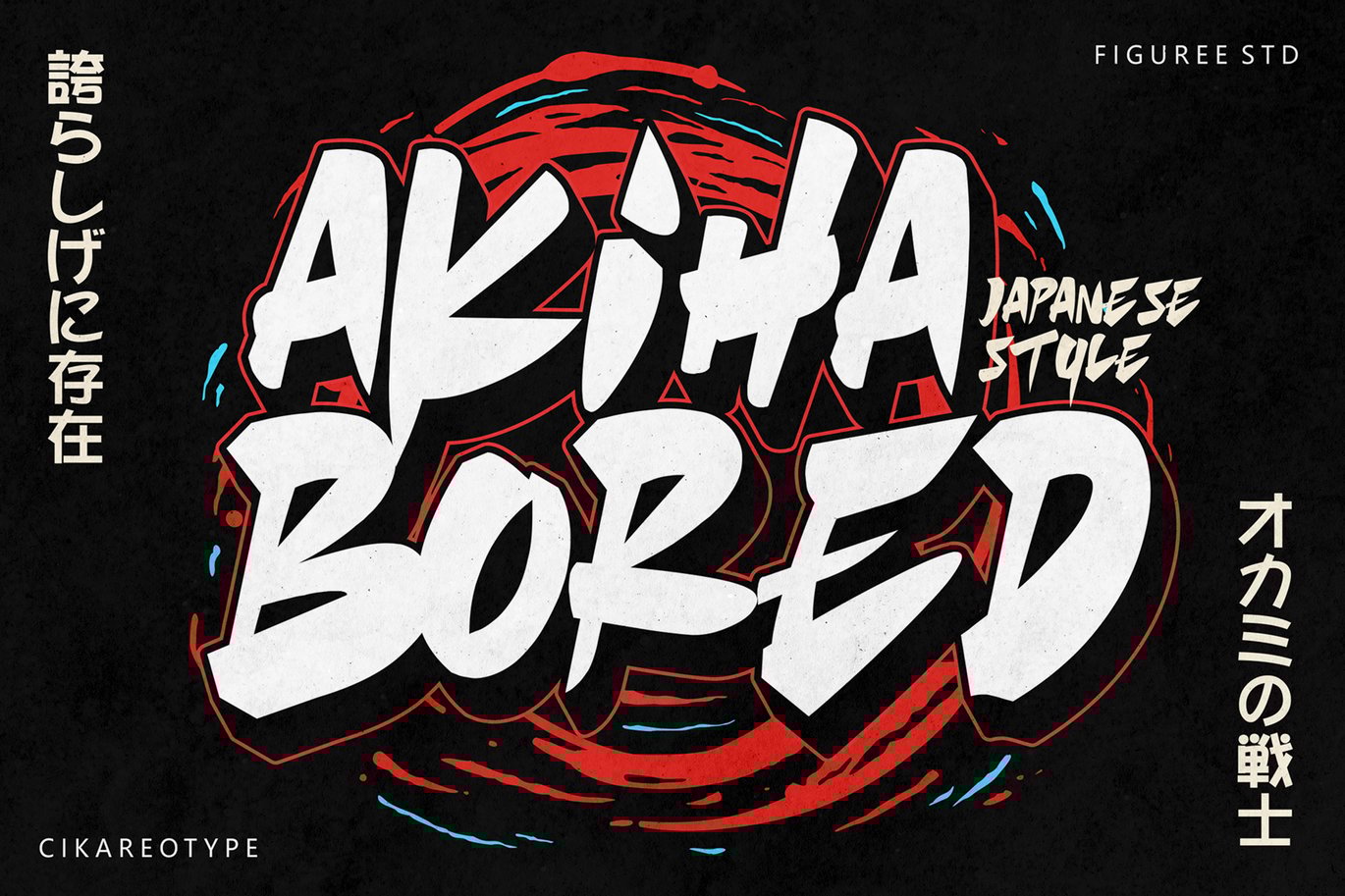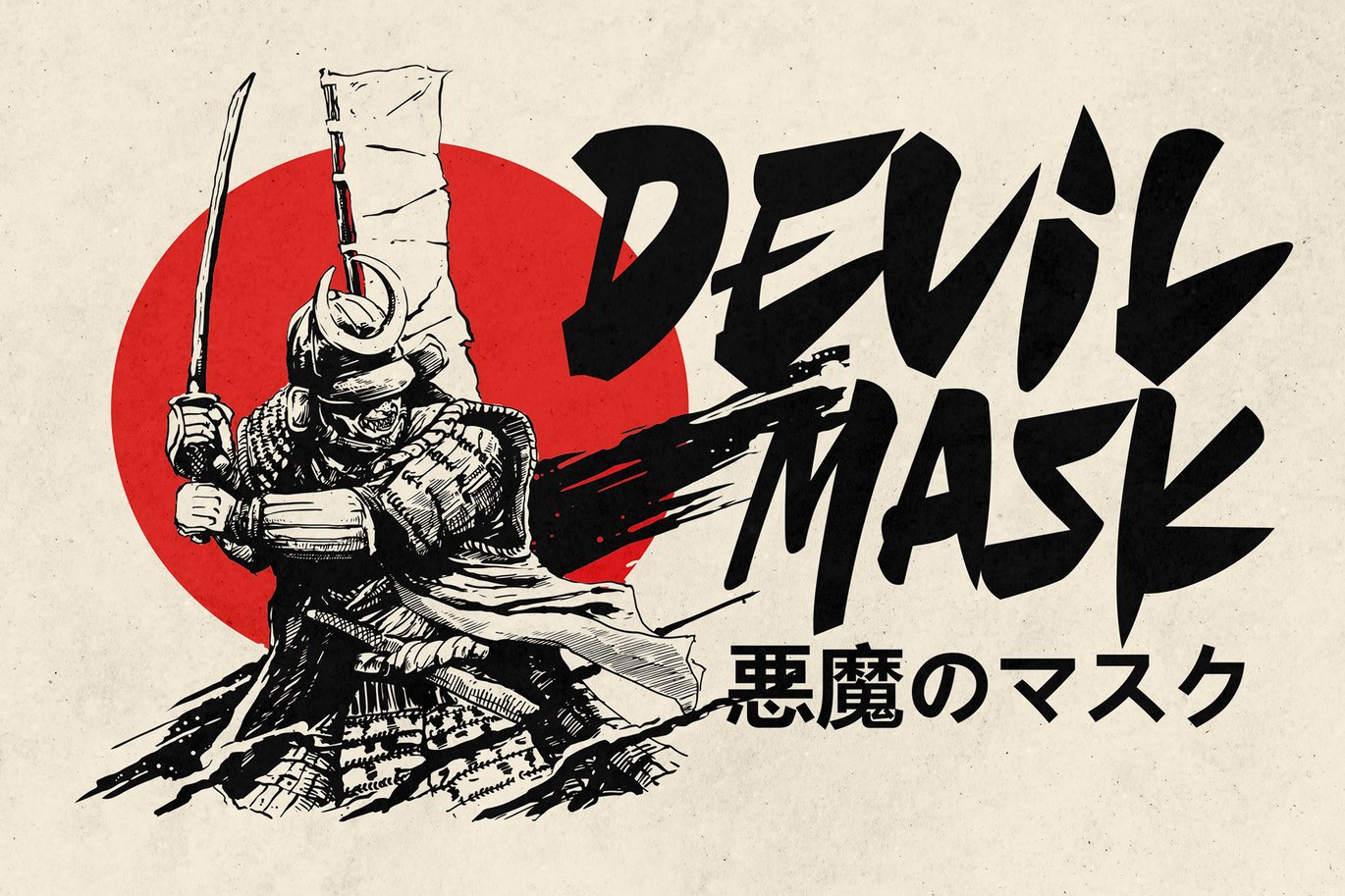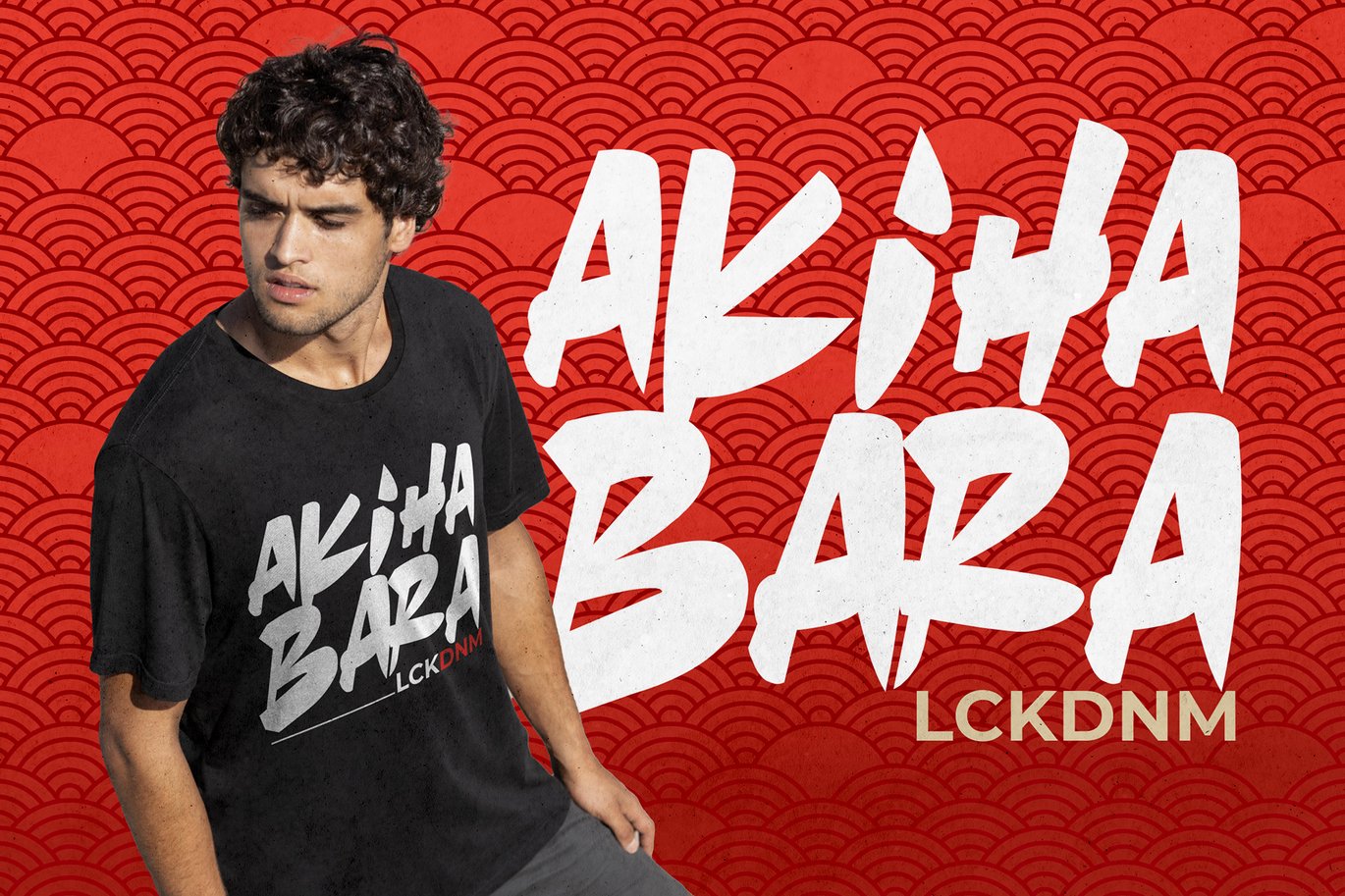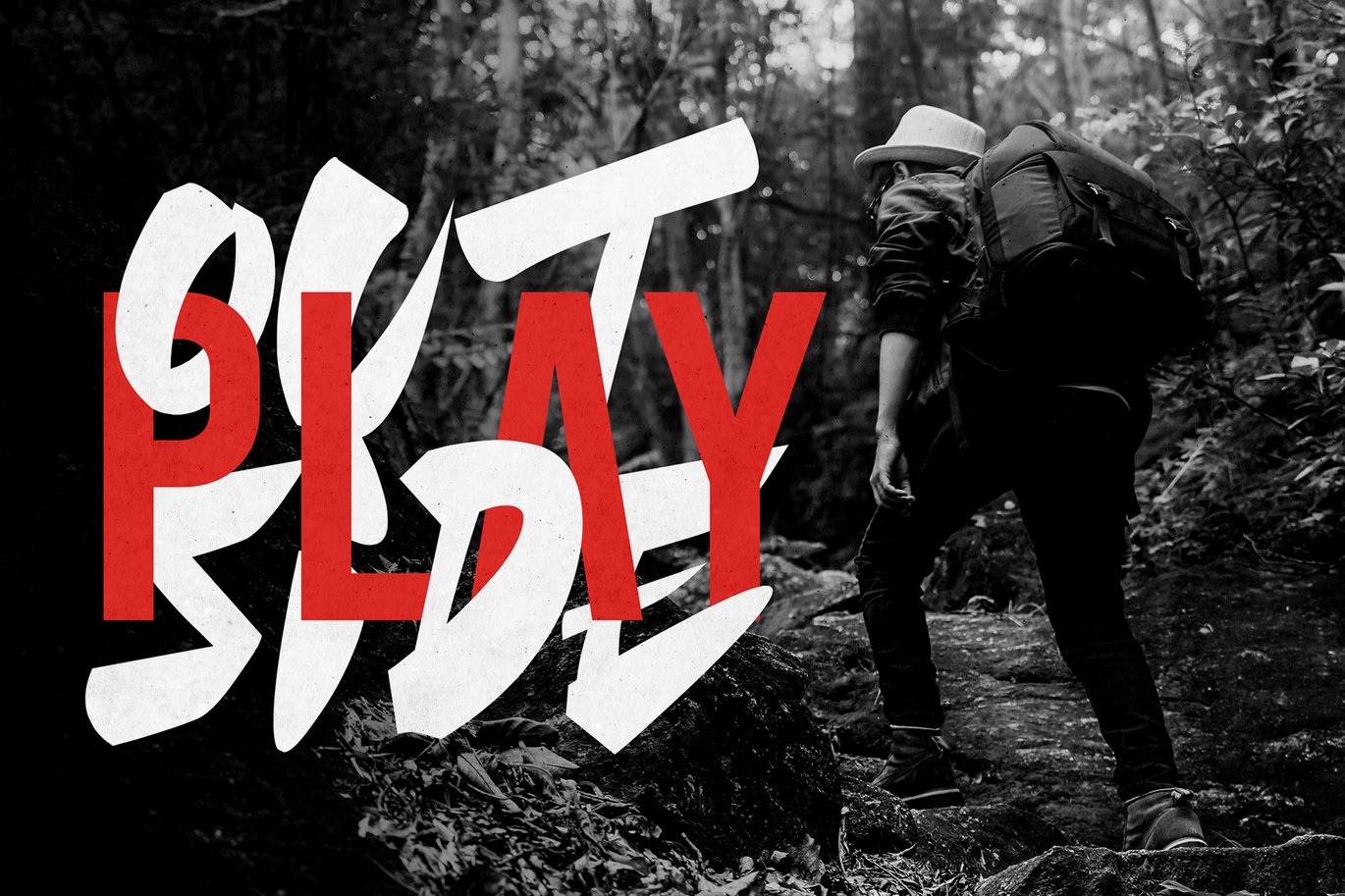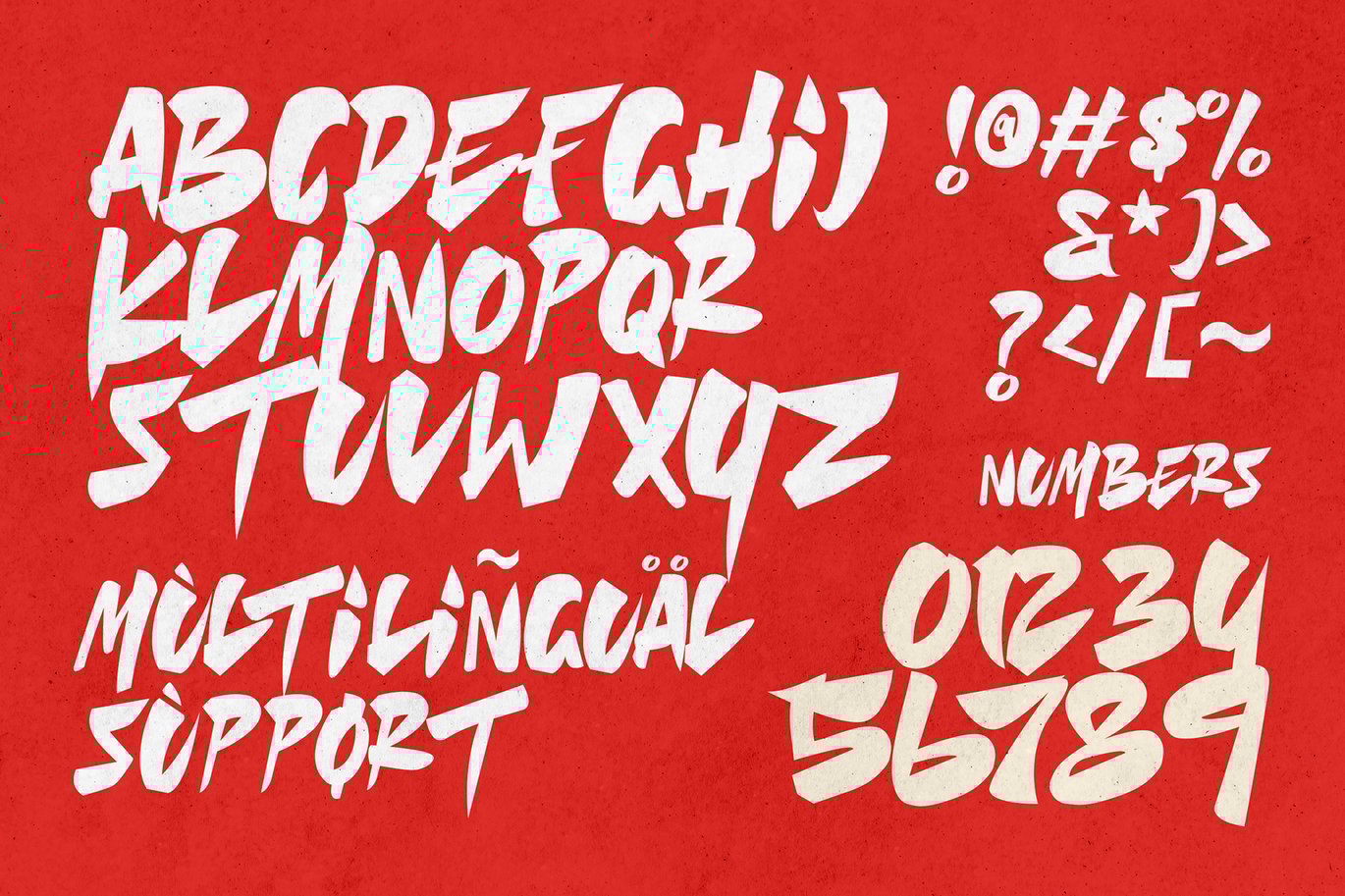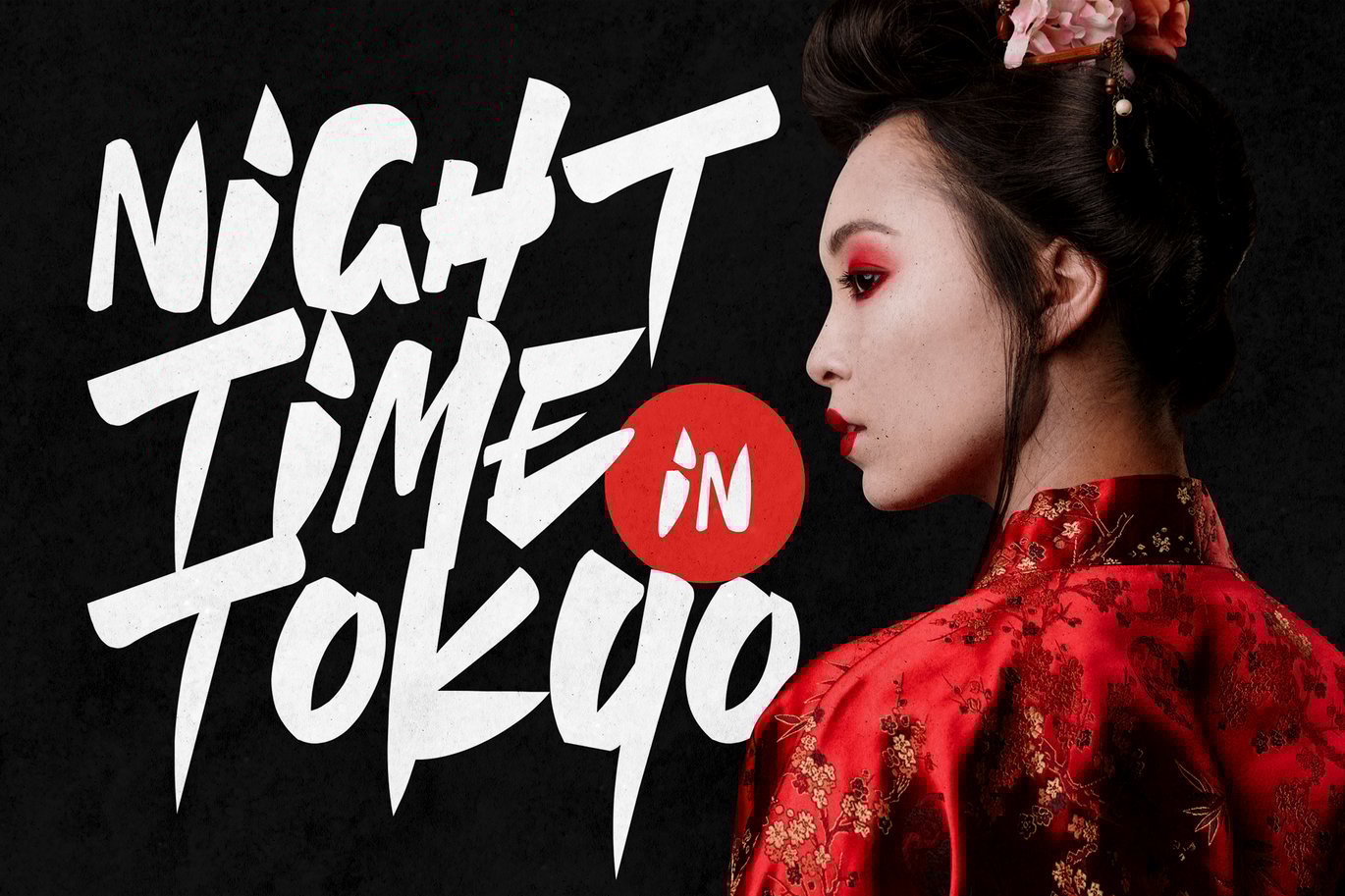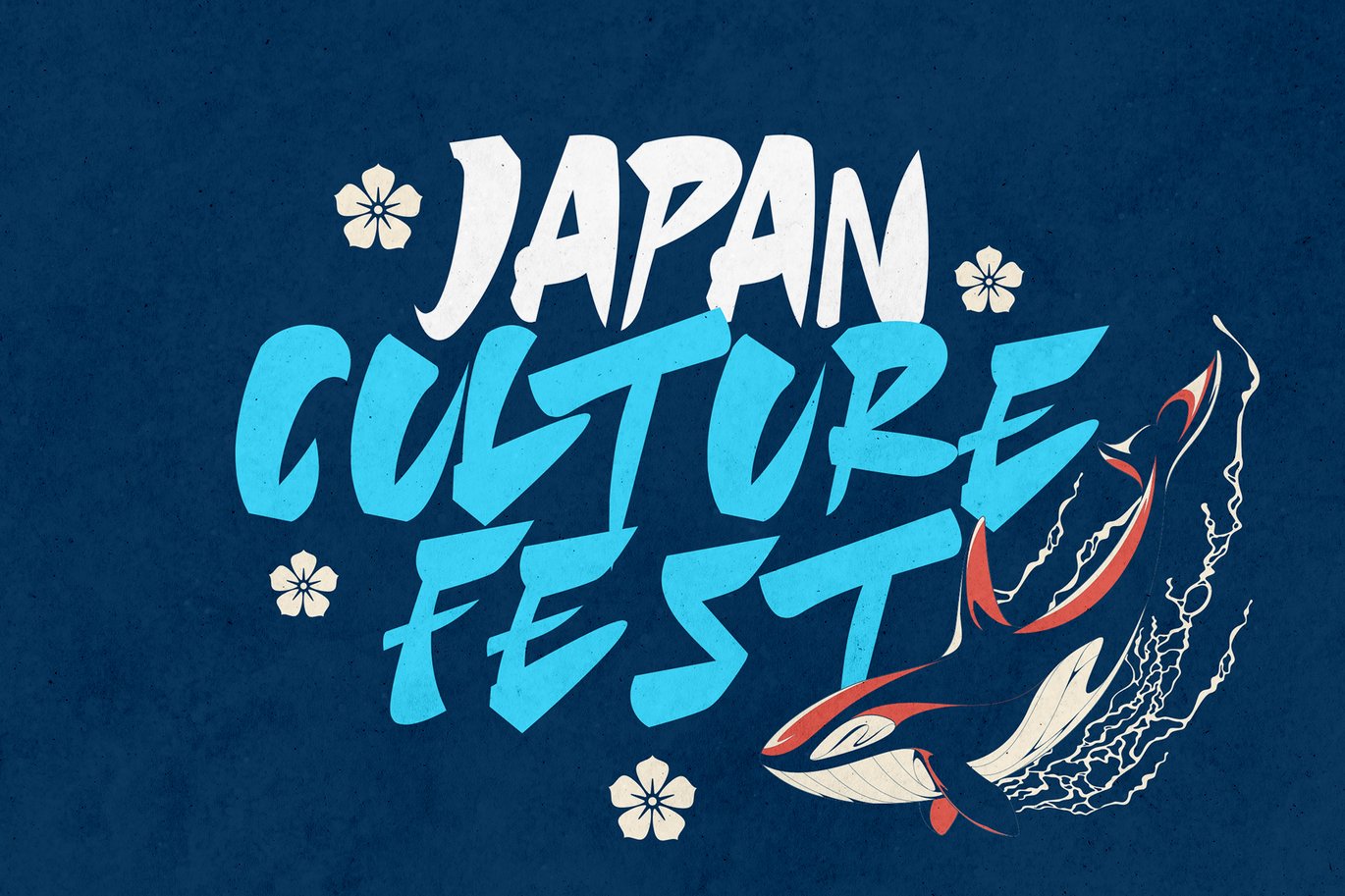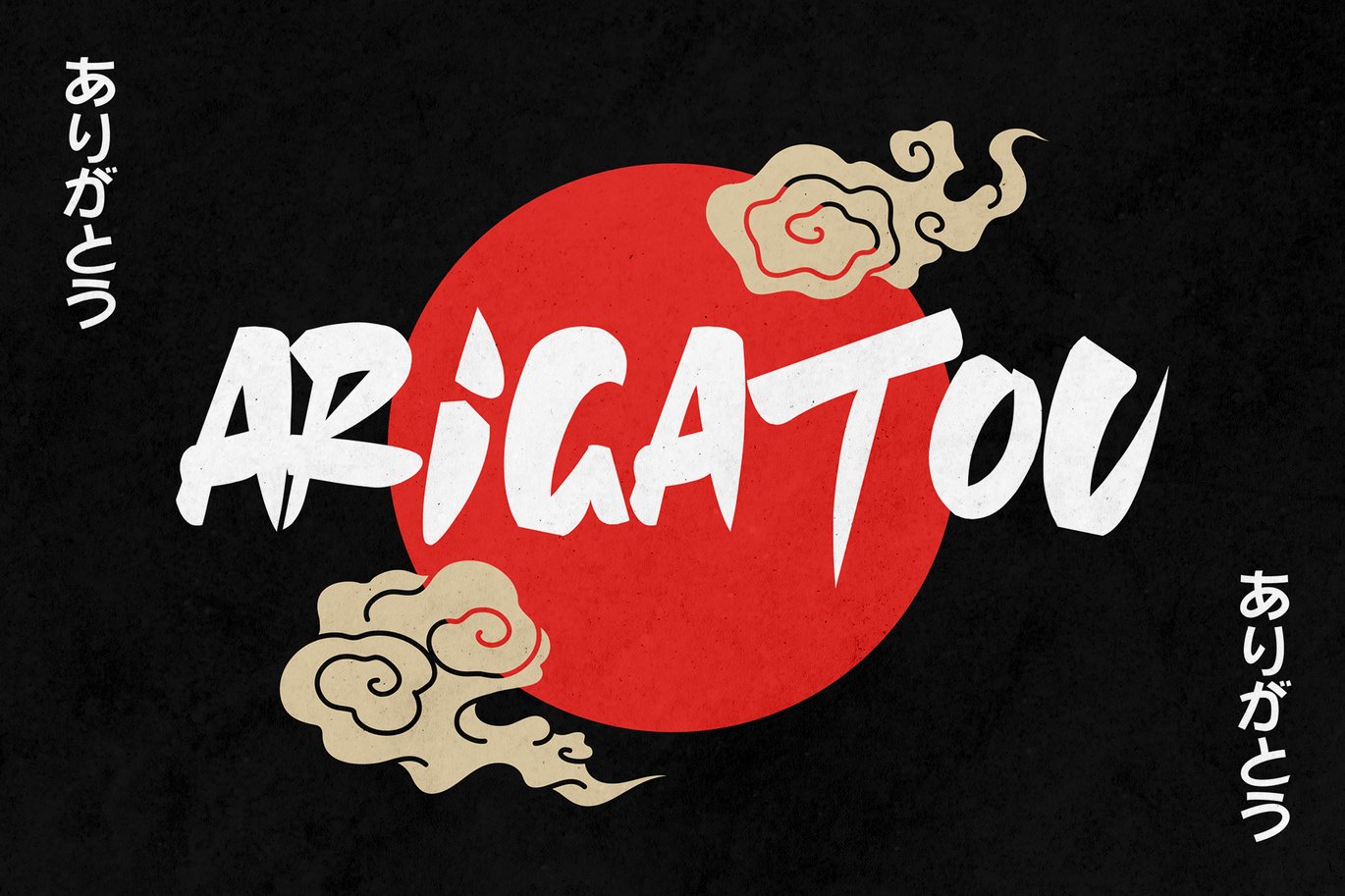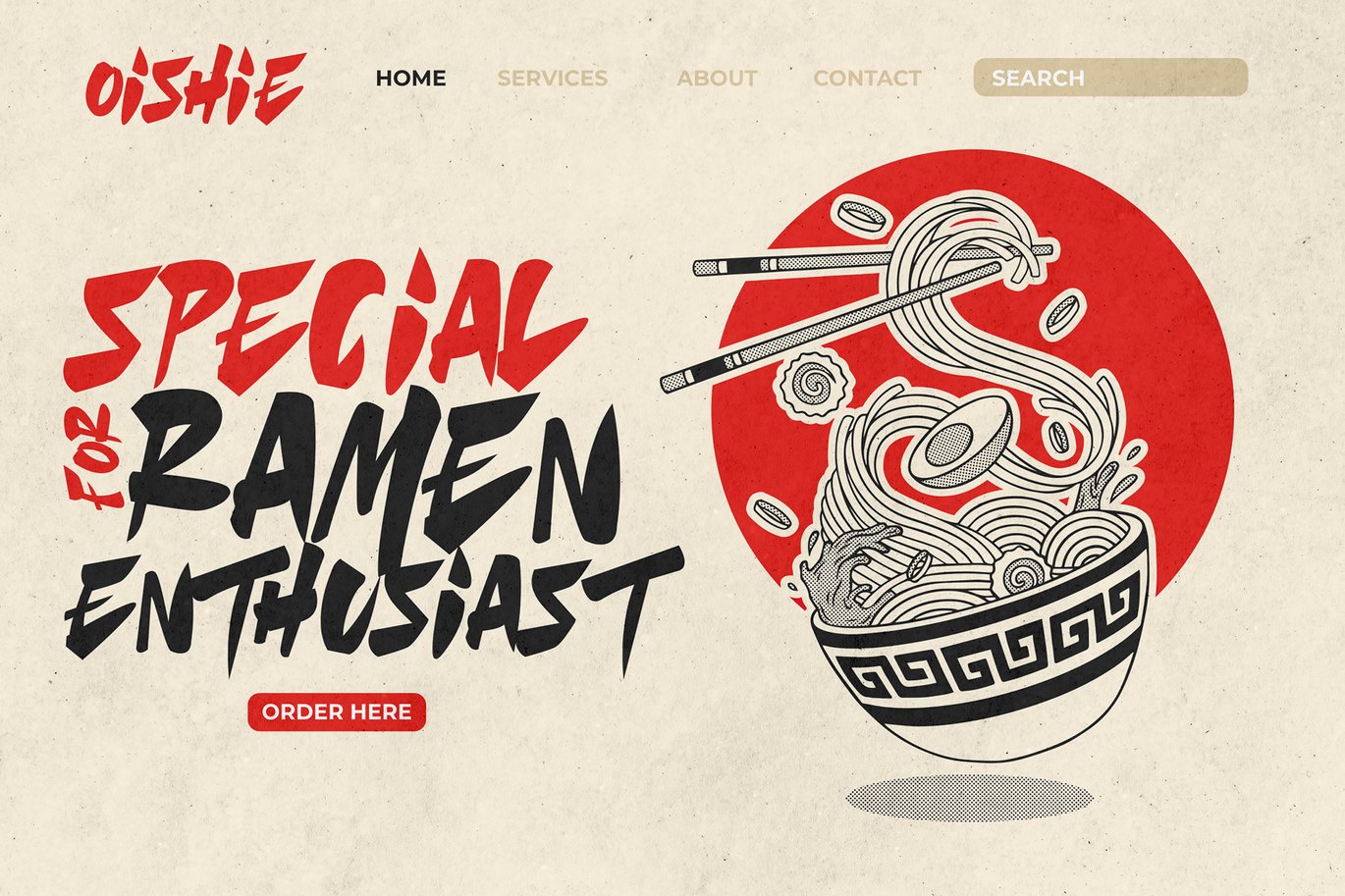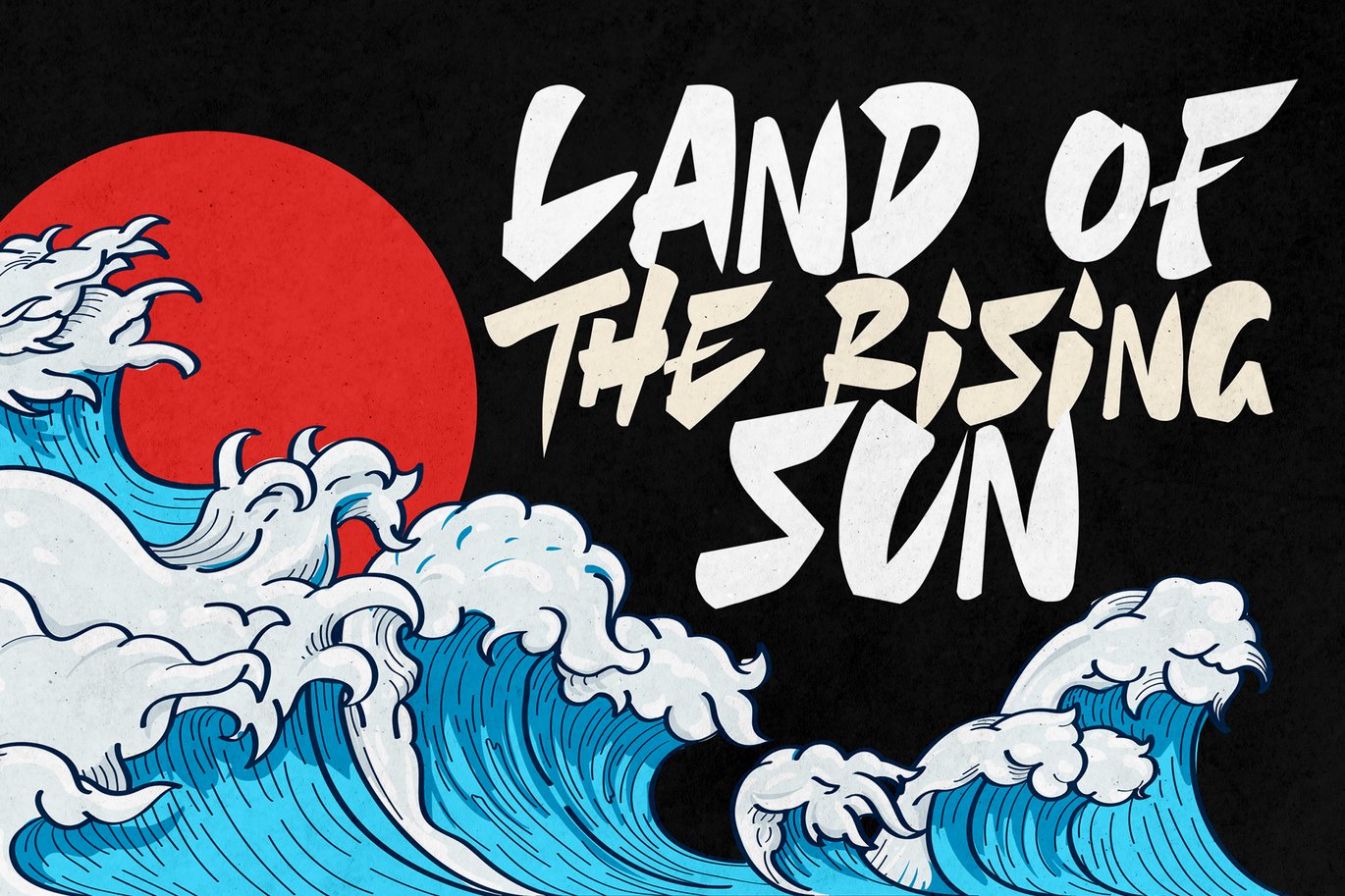
Akihabored – Japanese Style Font
Akihabored is a font that is inspired by the Japanese brush style, perfect for any Asian theme of design & promotion to create spectacular designs!
Akihabored is perfect for branding, logo, invitation, stationery, social media post, product packaging, merchandise, blog design, game titles, graffiti style design, Book/Cover Titles, and more.